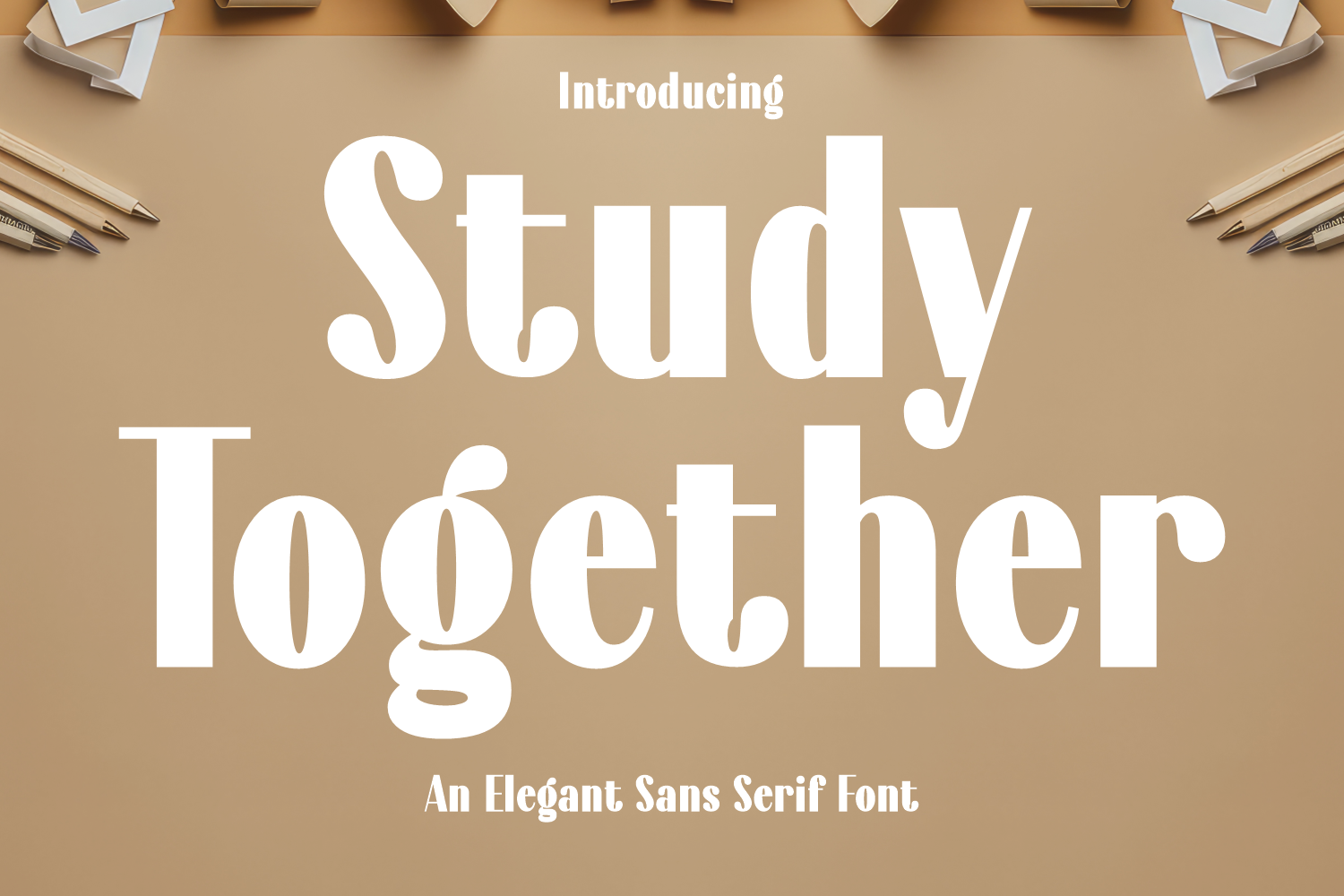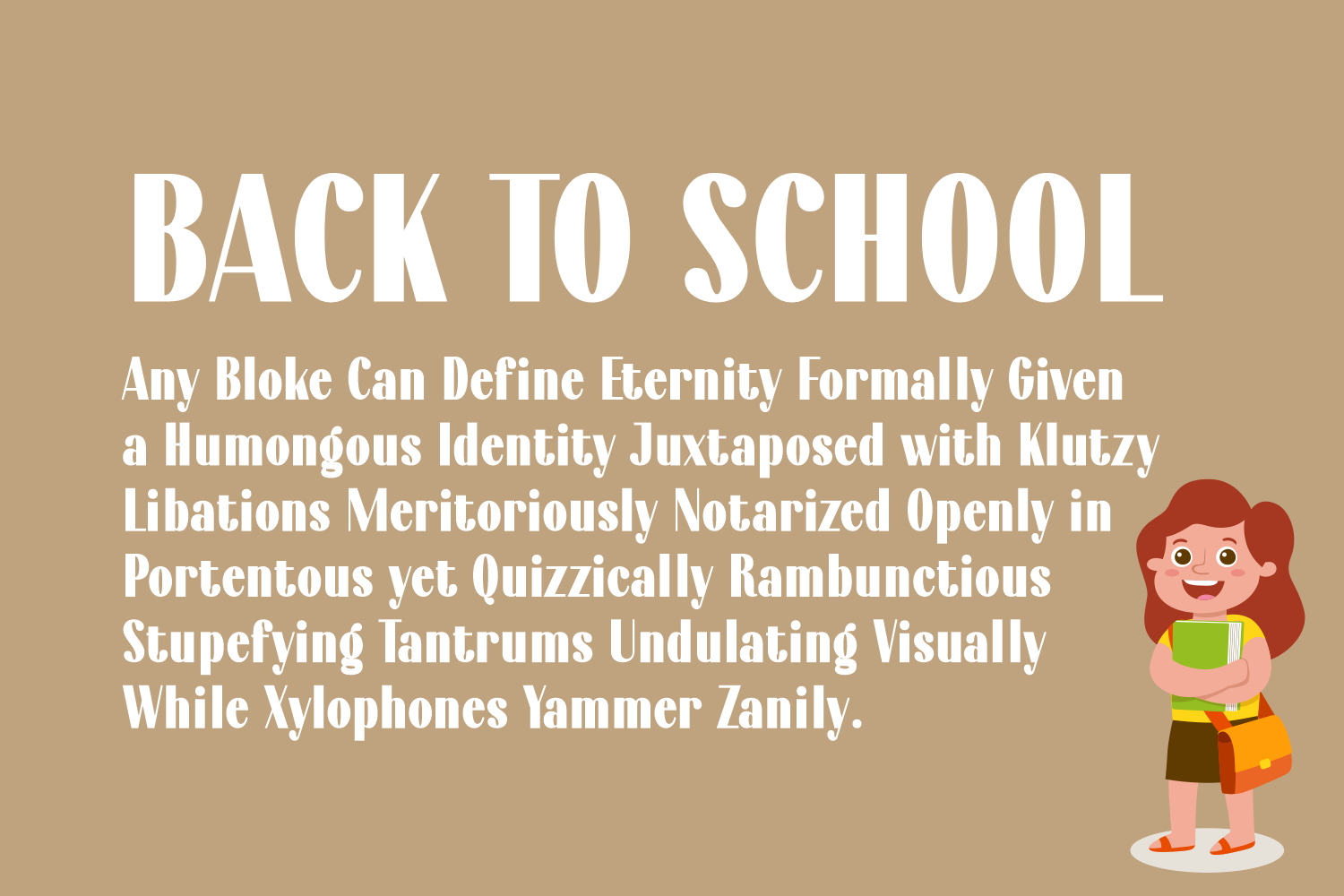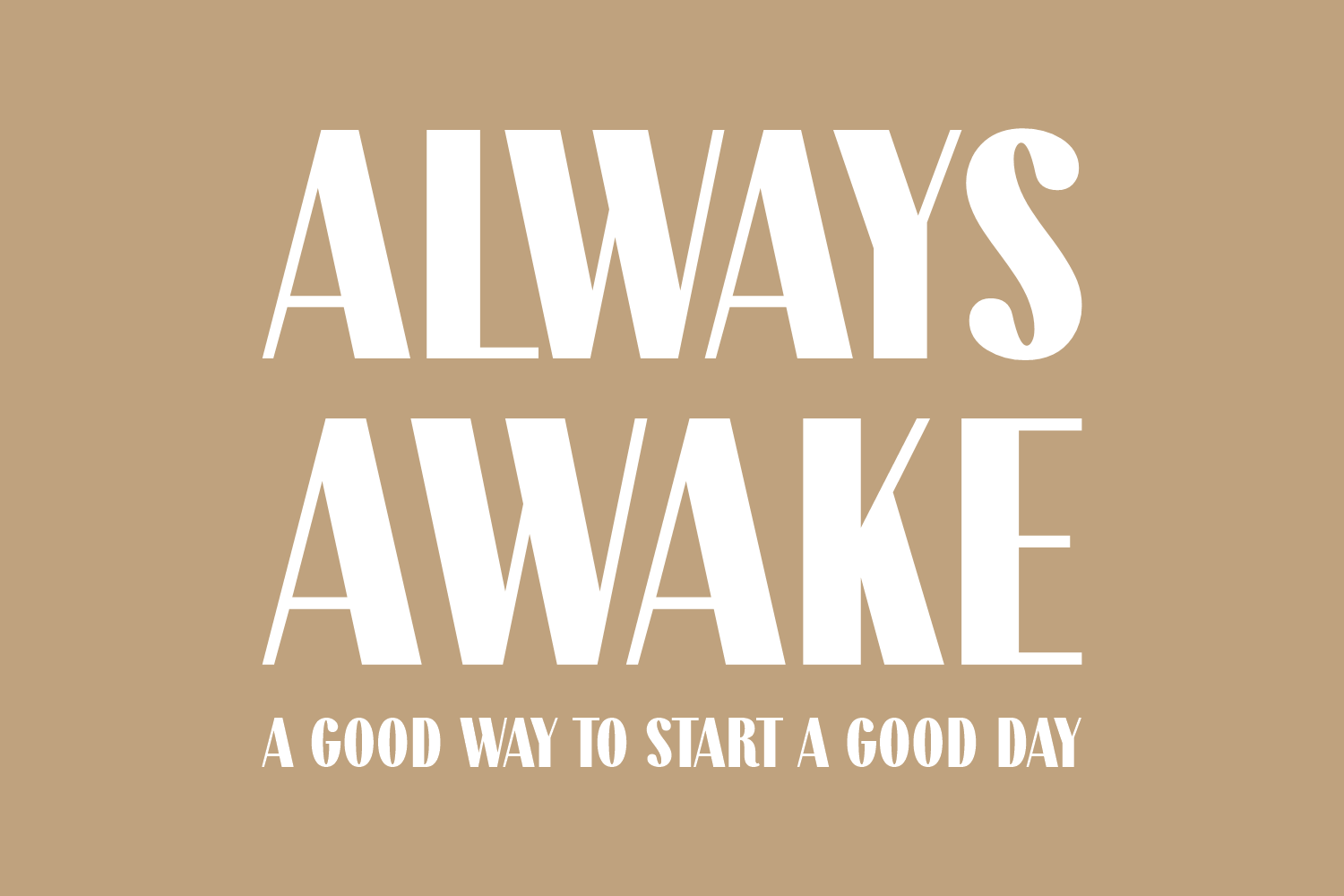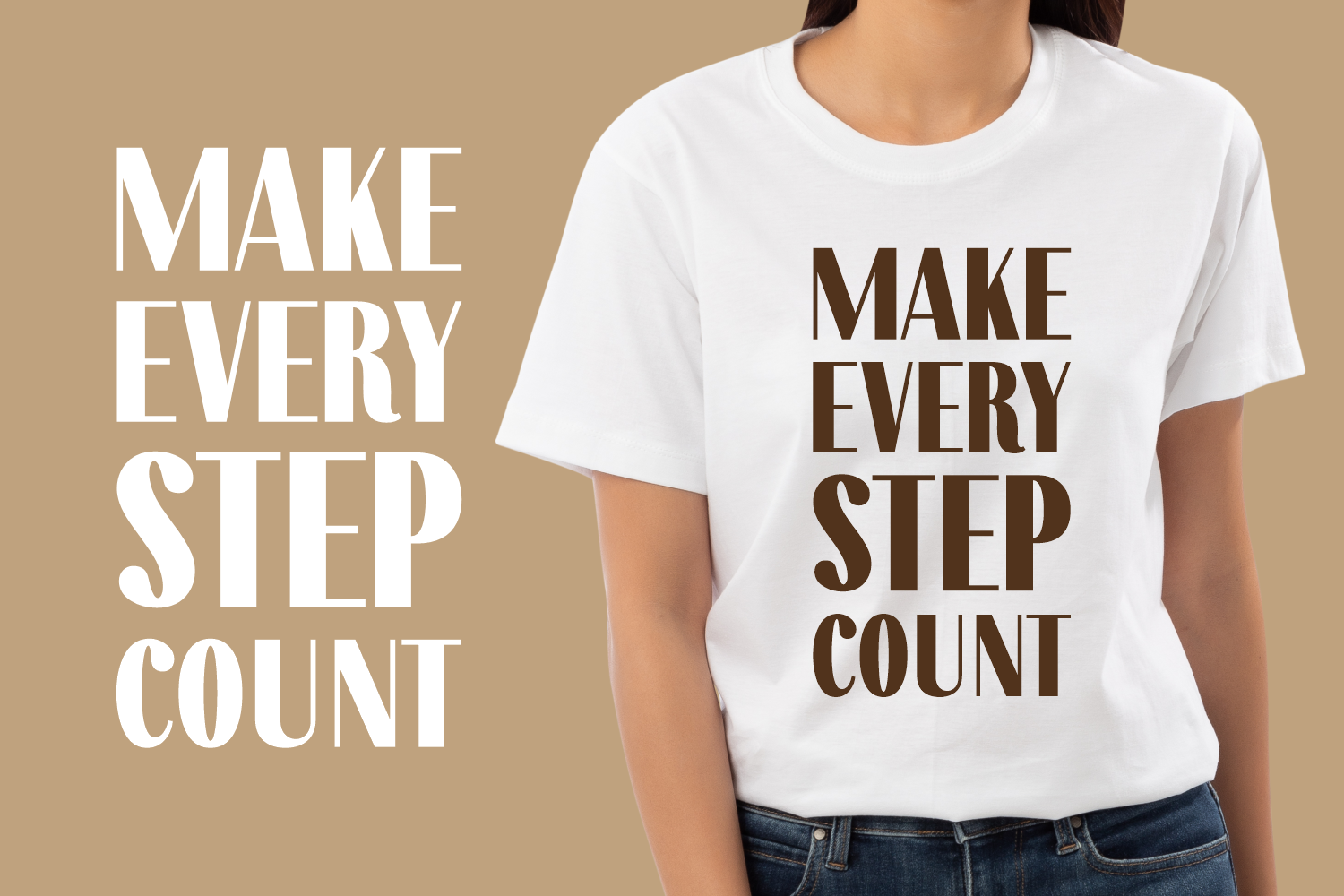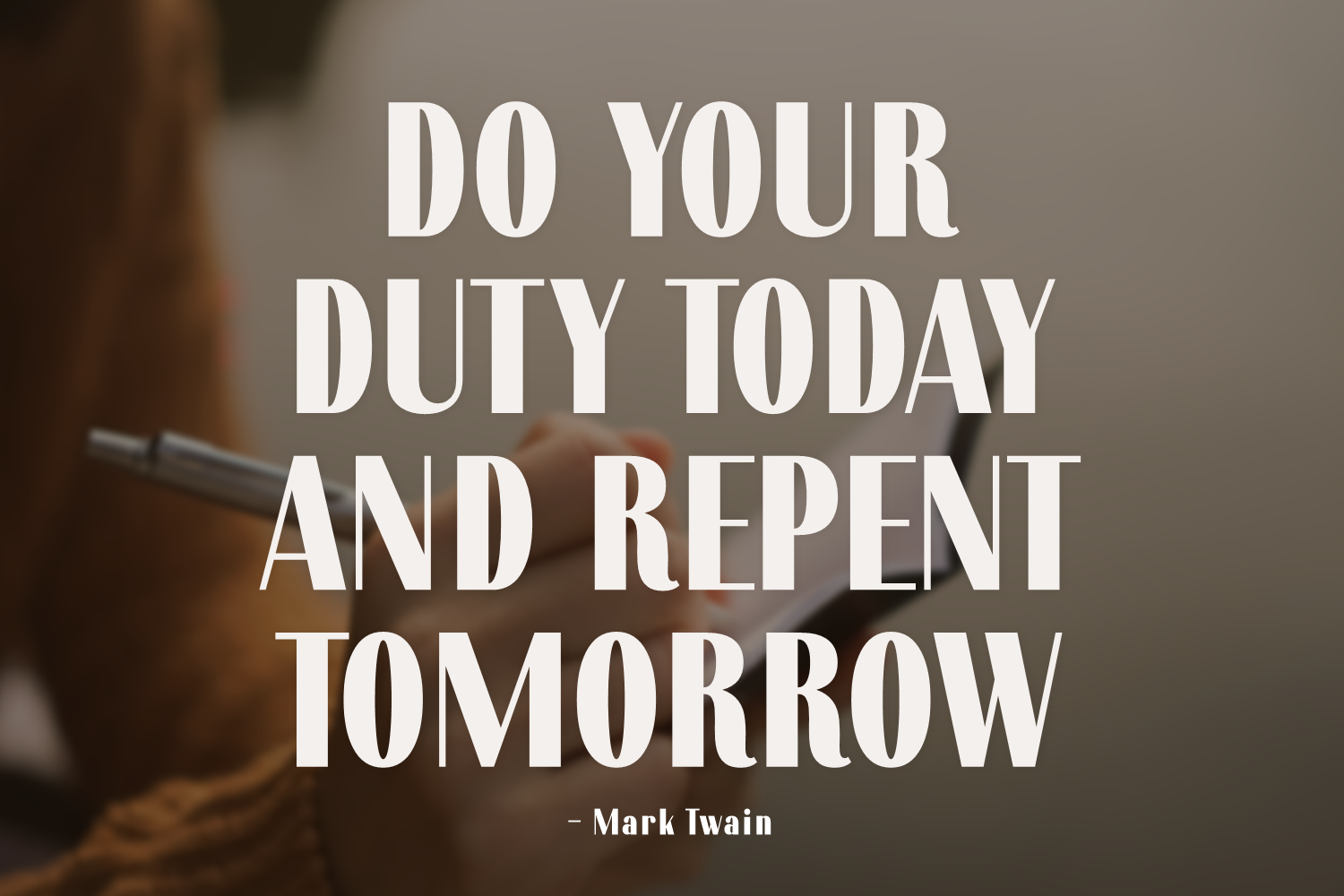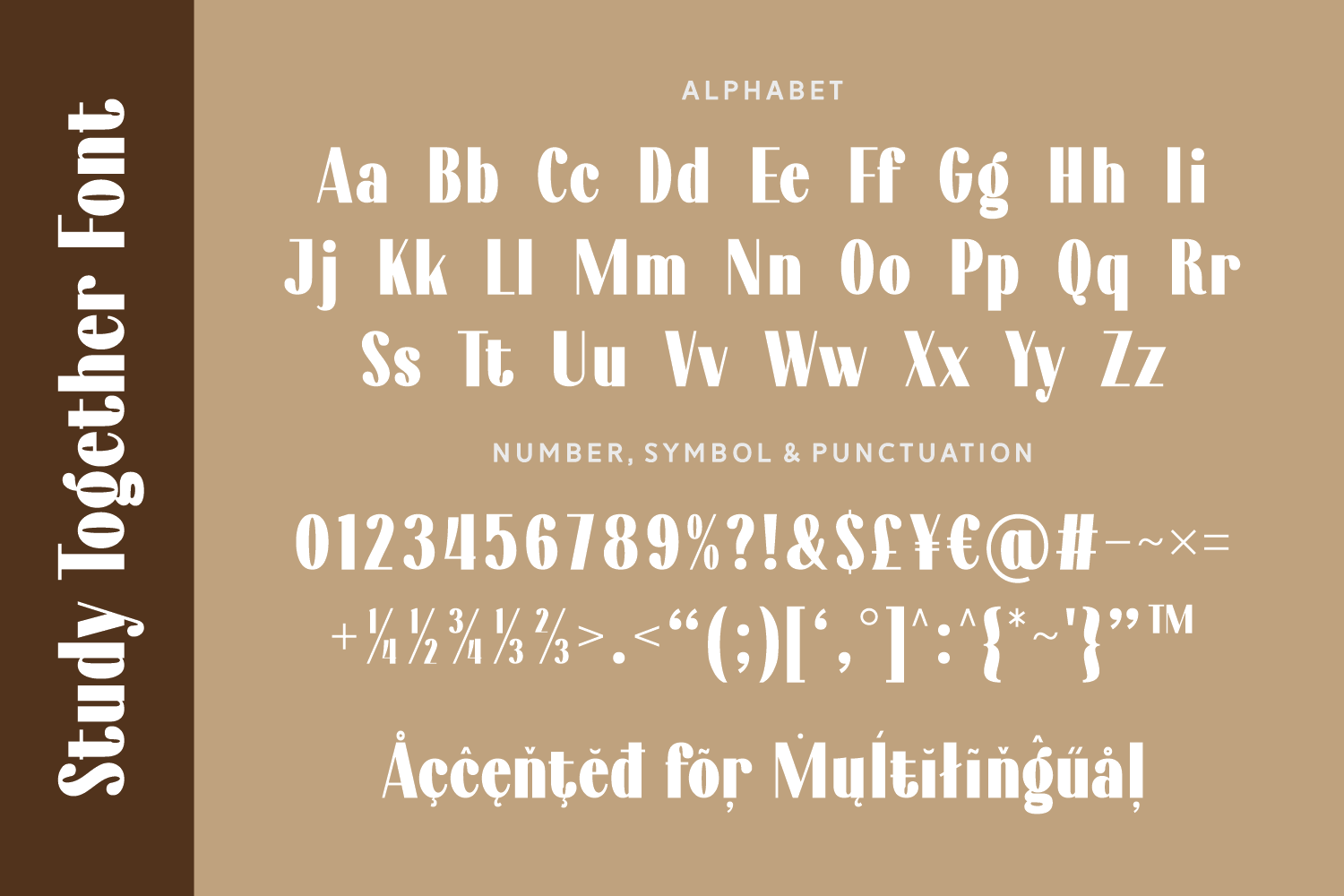
Study Together
Study Together is an elegant sans serif typeface blending bold forms with subtle curves for a contemporary yet refined look. Great for educational branding, posters, and creative campaigns that call for approachable sophistication.